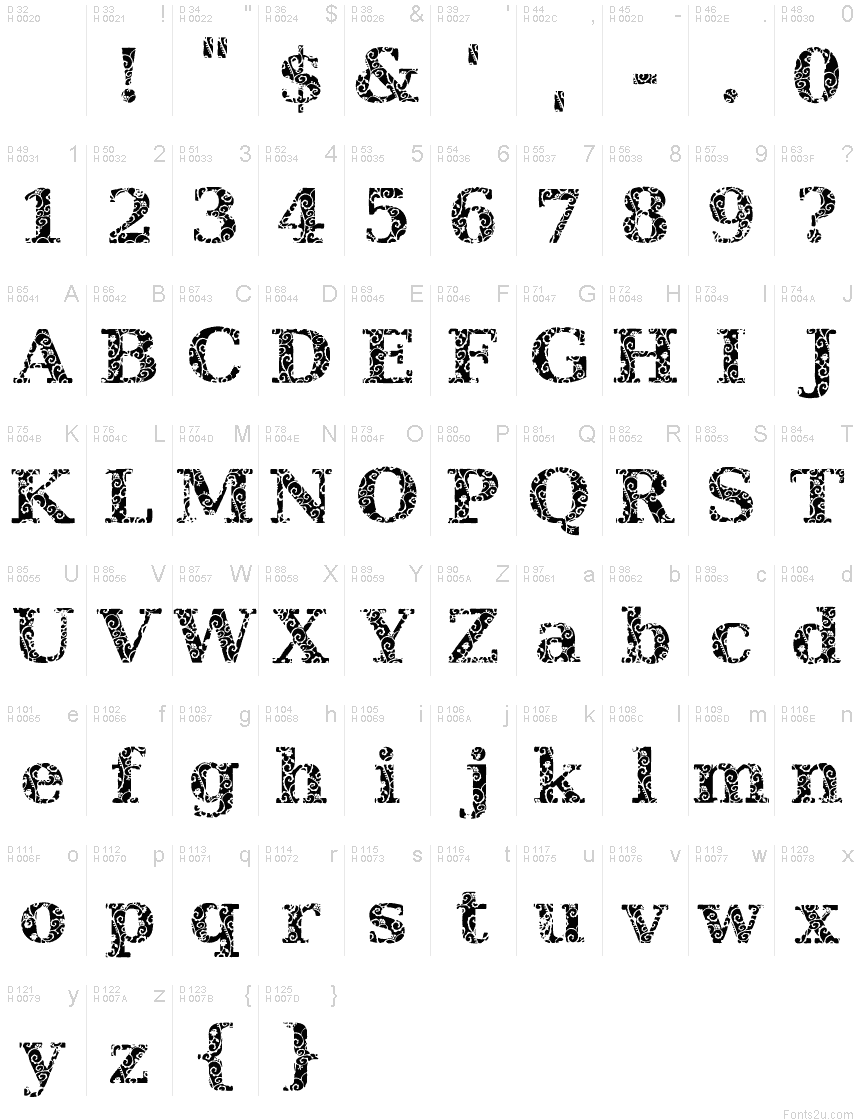
JI Hidden Vines
JI Hidden Vines font by Jeri Ingalls is a free decorative typeface that turns every letter into a lush tangle of curling vines. Thick, blocky silhouettes are carved out with delicate white foliage, creating a rich, almost embossed texture that feels both romantic and slightly mysterious. It has a strong, ink-heavy presence, so a little goes a long way-think of it as the ornate centerpiece in your layout.
Using JI Hidden Vines, headlines and monograms instantly feel like they’ve grown out of an old garden gate or antique book cover. This free font shines on wedding stationery, wine or soap labels, botanical posters, fantasy book titles, event flyers, and craft projects like decals or scrapbooking. For balance, pair it with a simple sans serif in small sizes and let JI Hidden Vines handle only the big words and initials.